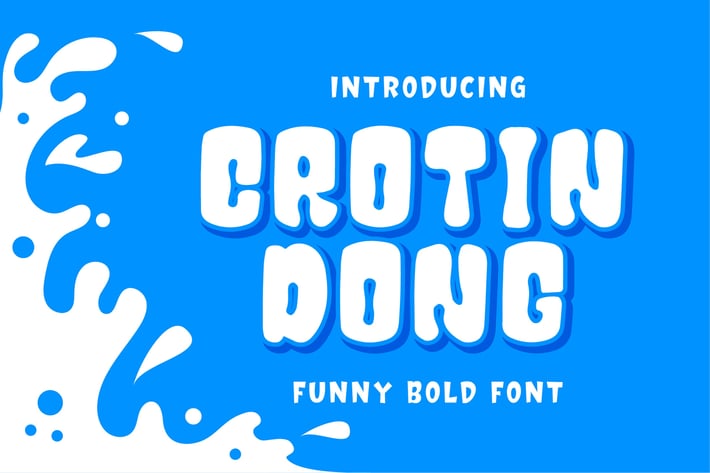
Crotin Dong - Funny Bold Font
Introducing of our new product the name is Crotin dong Funny Font. Crotin dong is combine the sans serif style with a fun theme very good for food design, restaurant menu, kids poster, flyer childrenbook, cartoon, comic etc
MULTILINGUAL ACCENT :
ŽžŠŒšŸÀÁÂÃÄÅÆÇÈÉÊËÌÍÎÏÐÑÒÓÔÕÖØÙÚÛÜÝßàáâãäåæçèéêëìíîïñòóôõöøùúûüýÿ